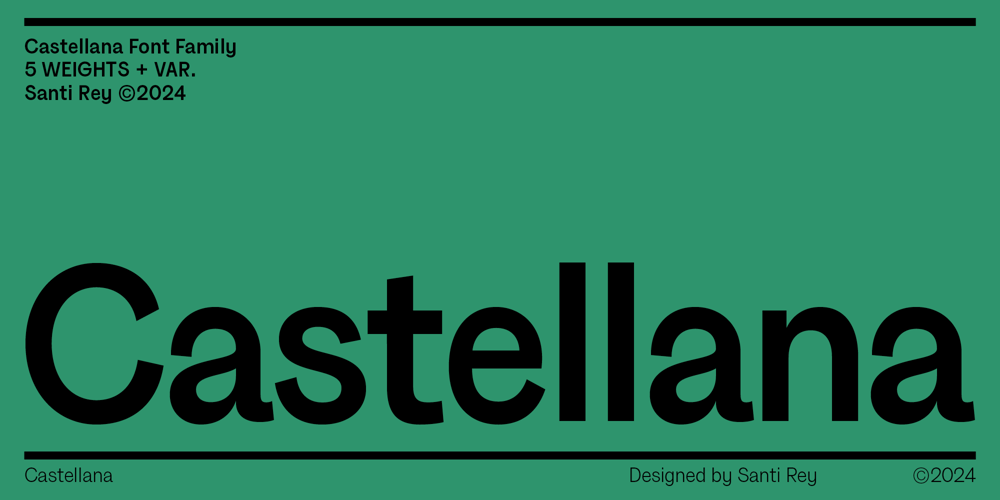
Castellana Font Family was designed by Santi Rey and published by Santi Rey. Castellana contains 6 styles and family package options. Castellana is a(nother) modern sans serif font. It draws inspiration from the vibrant streets of Madrid. It’s familiar, fresh and edgy. Castellana is perfect for branding, cool editorial projects, art galleries, and anything that demands a sleek, modern and sophisticated aesthetic.Castellana offers a modern twist on the traditional sans serif style, blending a grotesque typeface vibe with humanistic touches for a contemporary look without compromising legibility.Available in 5 weights and Variable format, Castellana offers flexibility and adaptability to suit diverse design needs. Additionally, it fully supports major Latin-based languages, ensuring seamless integration into a wide range of creative projects.